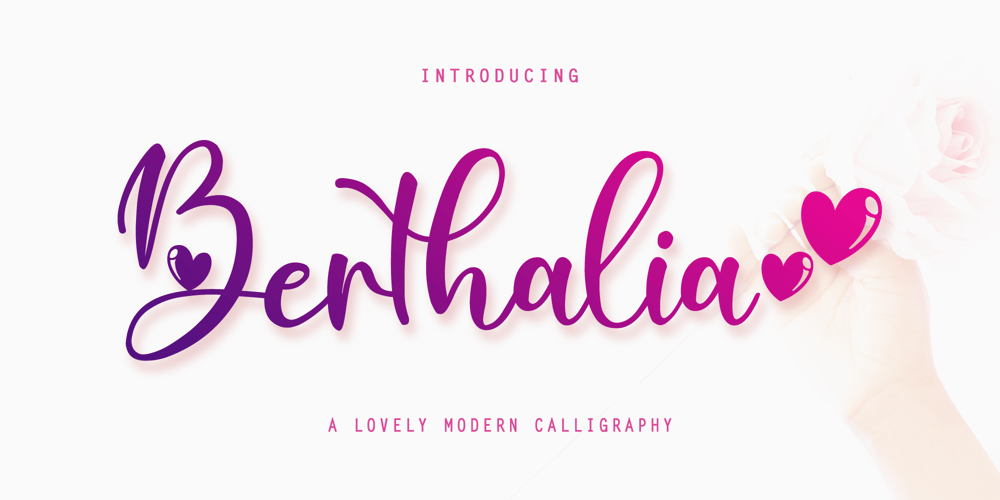
Berthalia
Berthalia font
Berthalia Font Family was designed by Aditiyo Dwi Putranto and published by Creaditive Design. Berthalia contains 2 styles and family package options. Berthalia is a lovely and romantic handwritten font. It looks stunning on wedding invitations, books, quotes, business cards,and lovely craft. With the addition of love that will enrich your design choices.Special characters are also available for lowercase letters with added beginning & end swashes, also Ligatures that can make your design more smooth and looks natural.